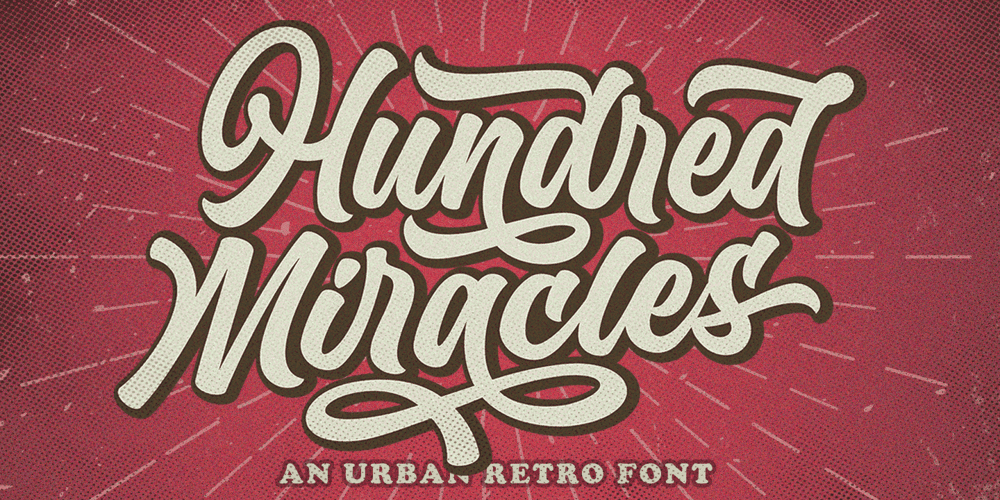
Hundred Miracles Font Family was designed by Måns Grebäck and published by Mans Greback. Hundred Miracles contains 4 styles and family package options. Hundred Miracles is a bold and colorful calligraphy typeface. With a confident flow, its soft, expressive letterforms dances across the baseline and is pleasant to read and fun to look at. Hundred Miracles consists of two styles: the Regular style, with the characteristic swashes and decorations, and the Plain style, that is more subtle and controlled. Using them together results in a calligraphic artwork with a truly customized appearance. Use underscore _ anywhere in a word to make a swash. Example: Hun_dredUse multiple underscores for different swashes.Example: Mira___cles(Download required.)The font is built with advanced OpenType functionality and has a guaranteed top-notch quality, containing stylistic and contextual alternates, ligatures and more features; all to give you full control and customizability. It has extensive lingual support, covering all Latin-based languages, from North Europe to South Africa, from America to South-East Asia. It contains all characters and symbols you’ll ever need, including all punctuation and numbers.